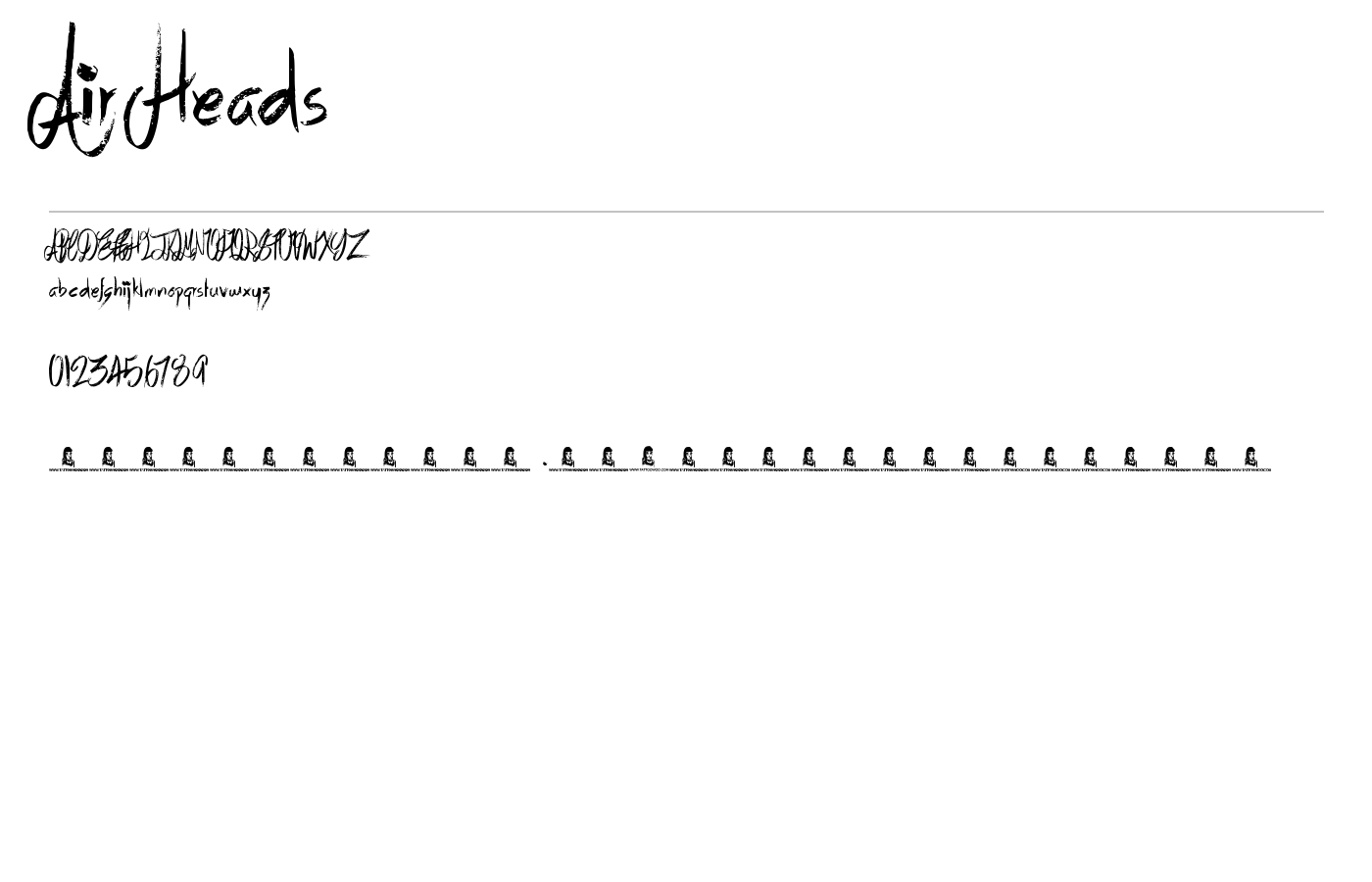
Air Heads is a distinctive handwritten font with a rough, sketchy texture that conveys a playful and artistic vibe. Its irregular strokes and narrow, tall letterforms make it ideal for creative designs that seek an informal, edgy, or quirky feel. This font works well in artistic branding, posters, and expressive headlines where individuality and a raw, organic touch are desired.
Air Heads Font
About Air Heads Font
| Font family | Air Heads Font |
| Designer | Jonathan S. Harris |